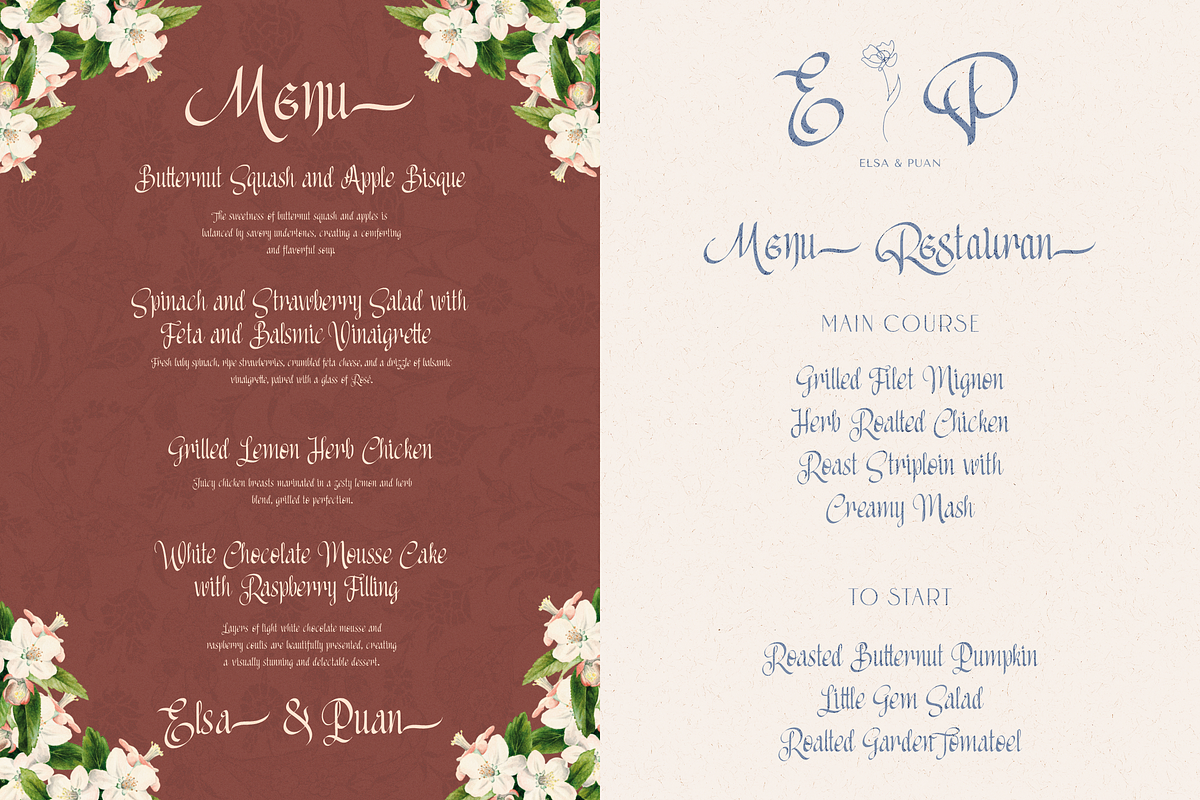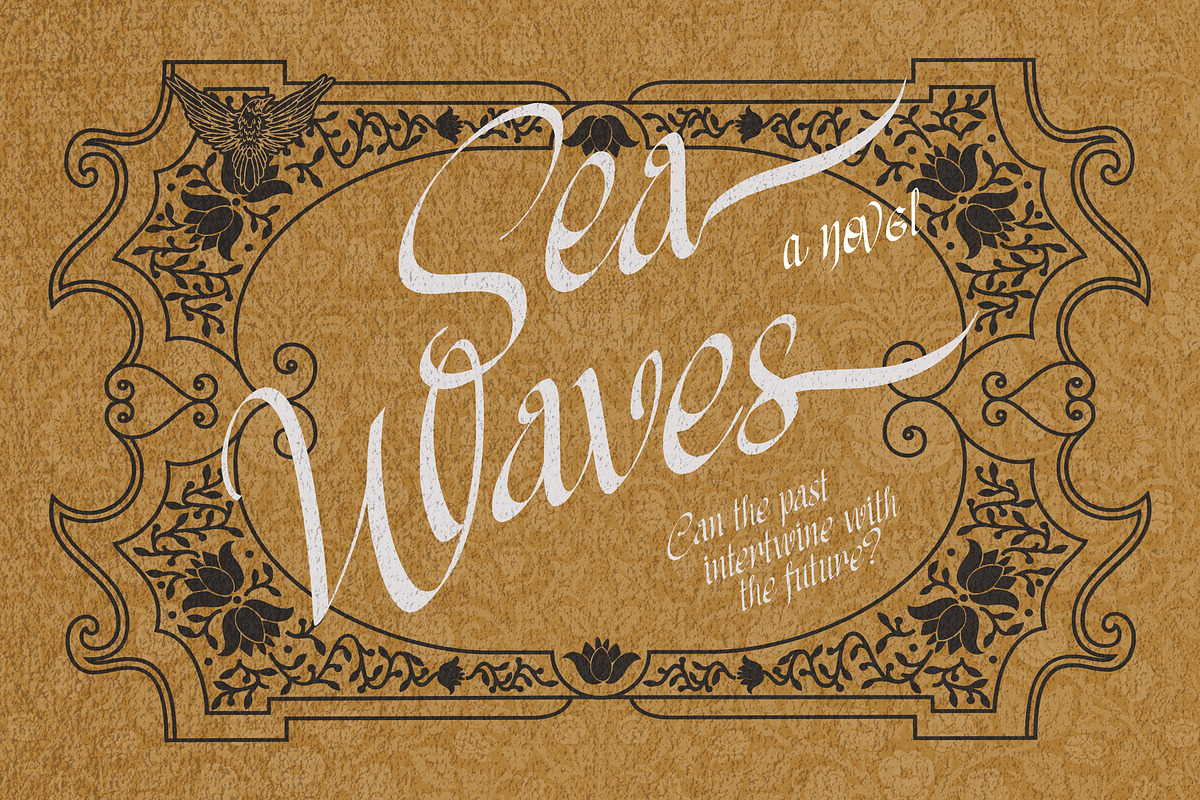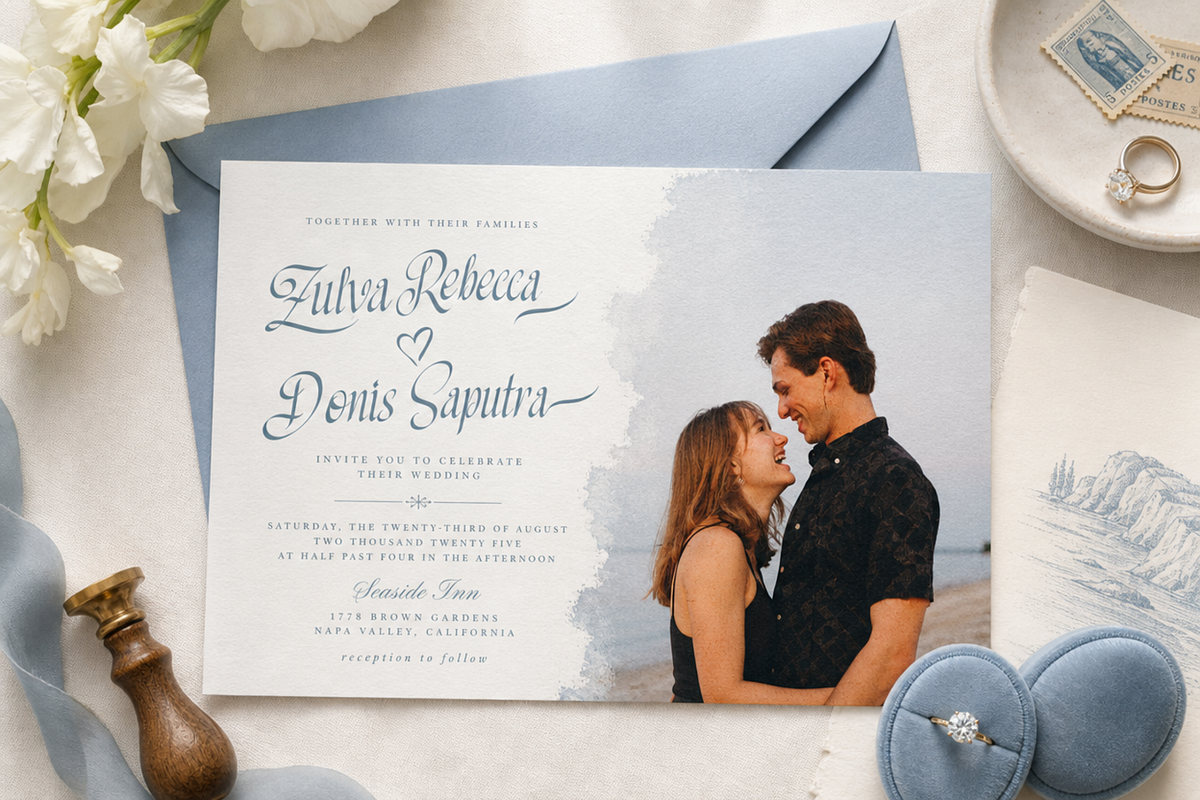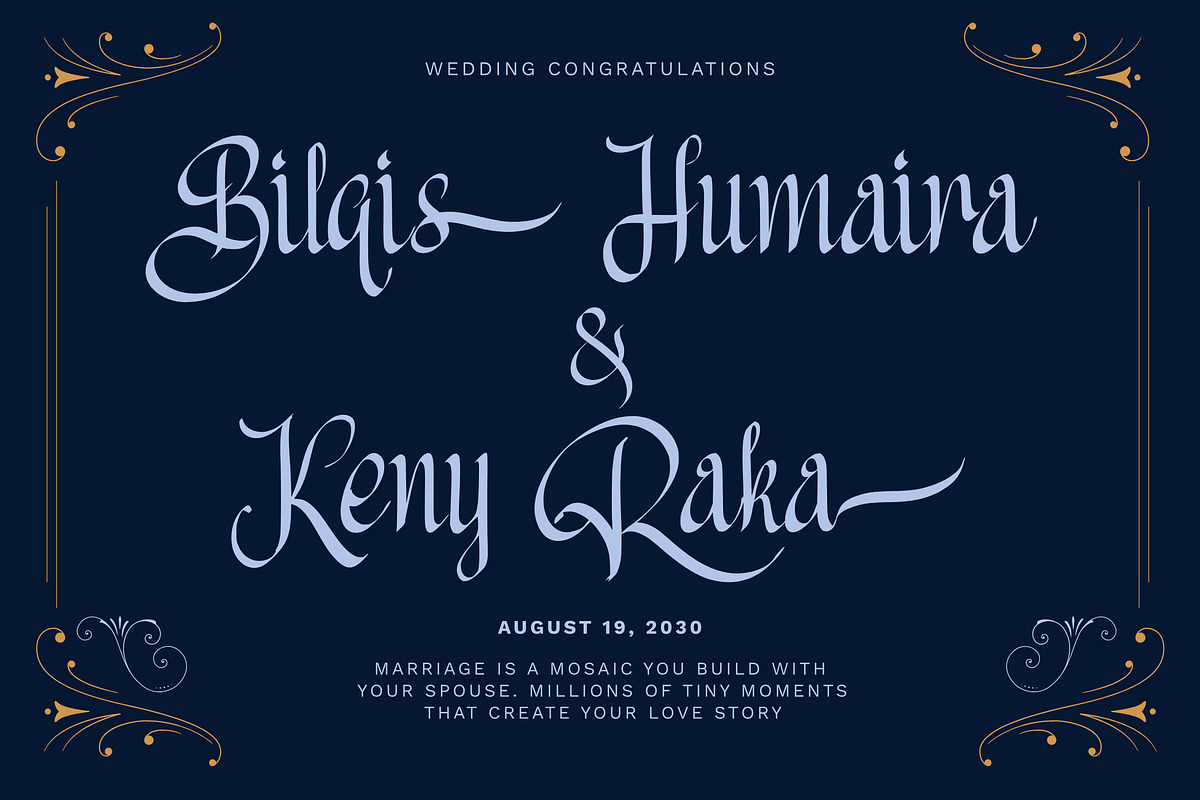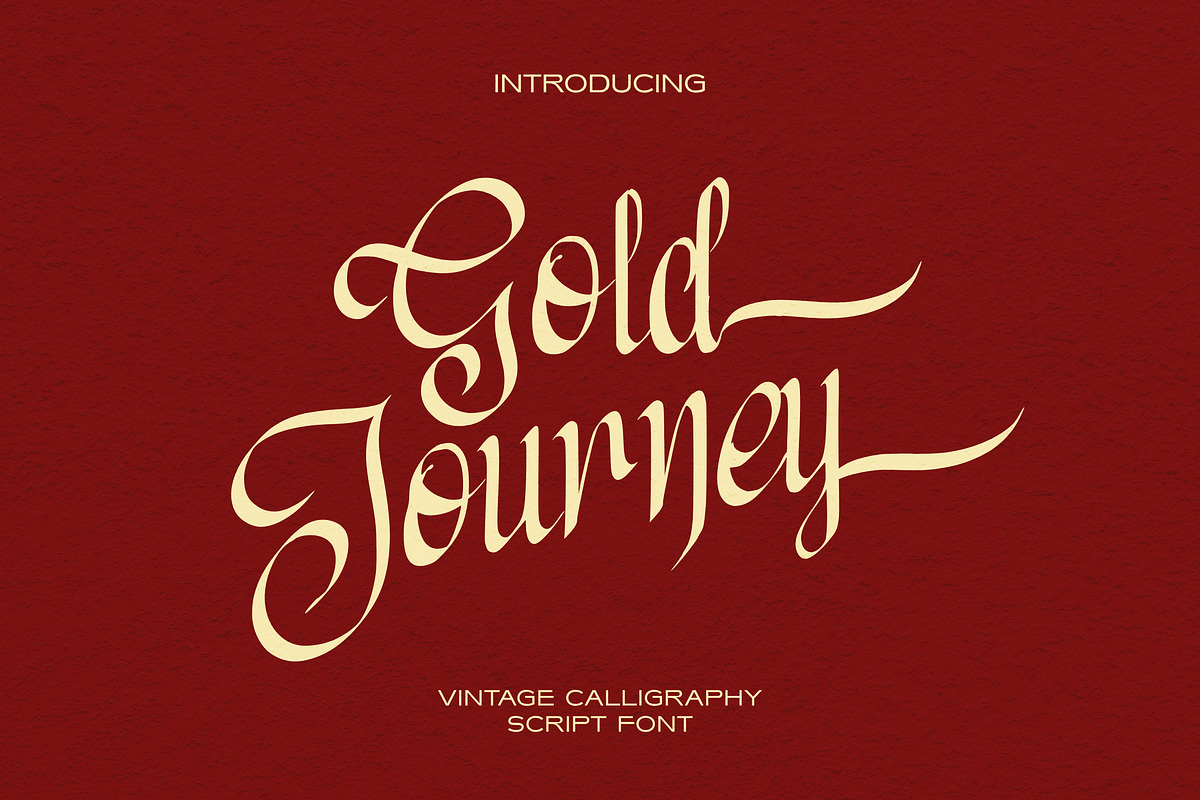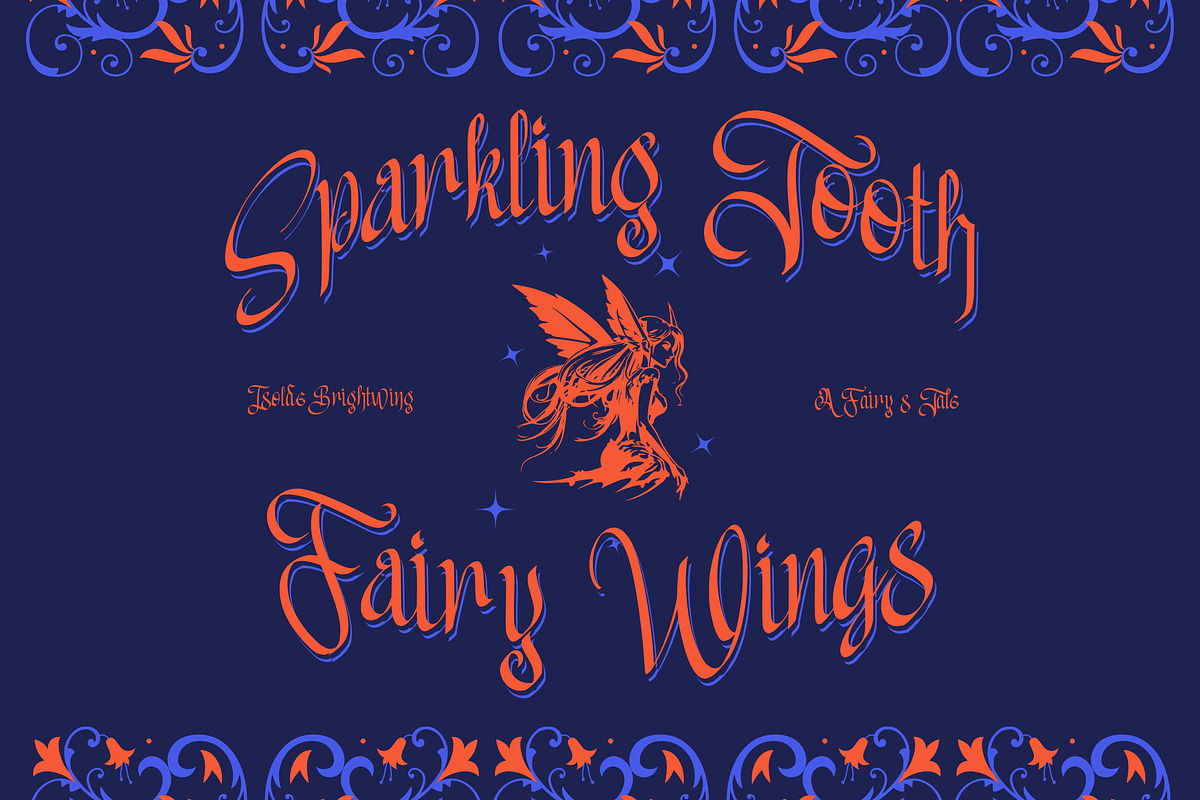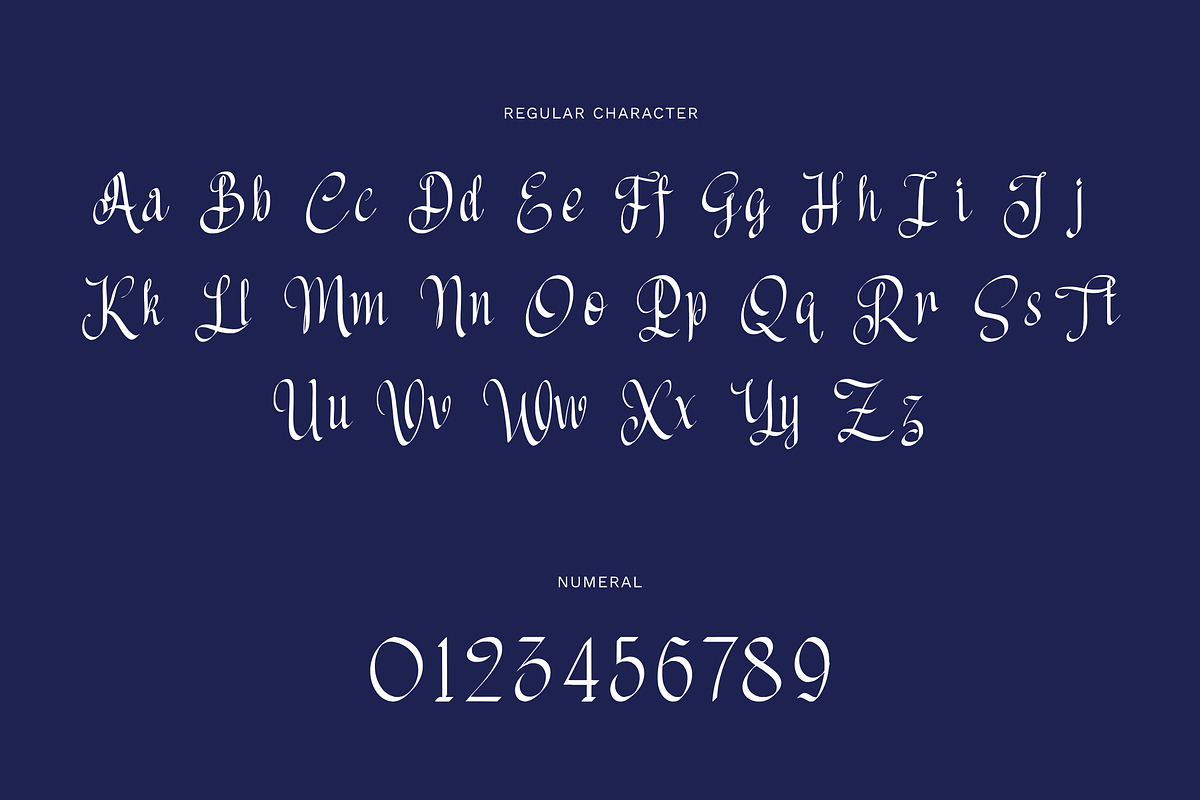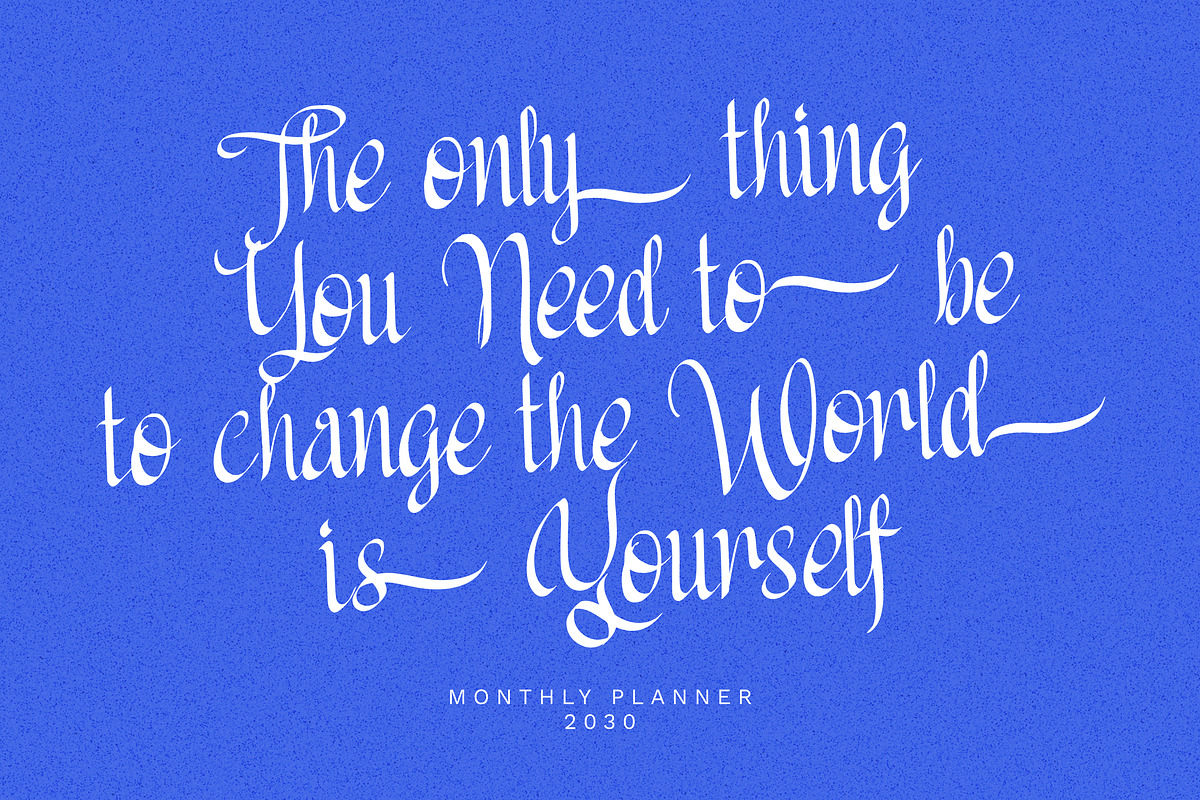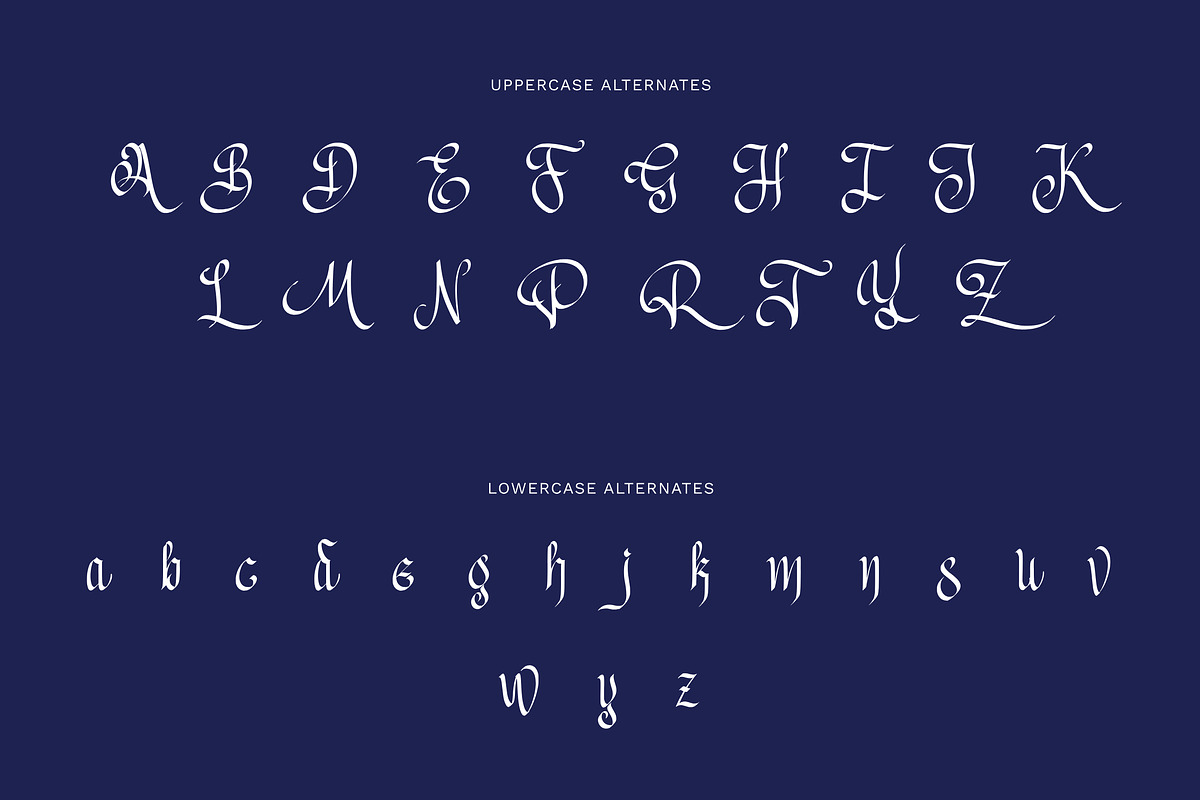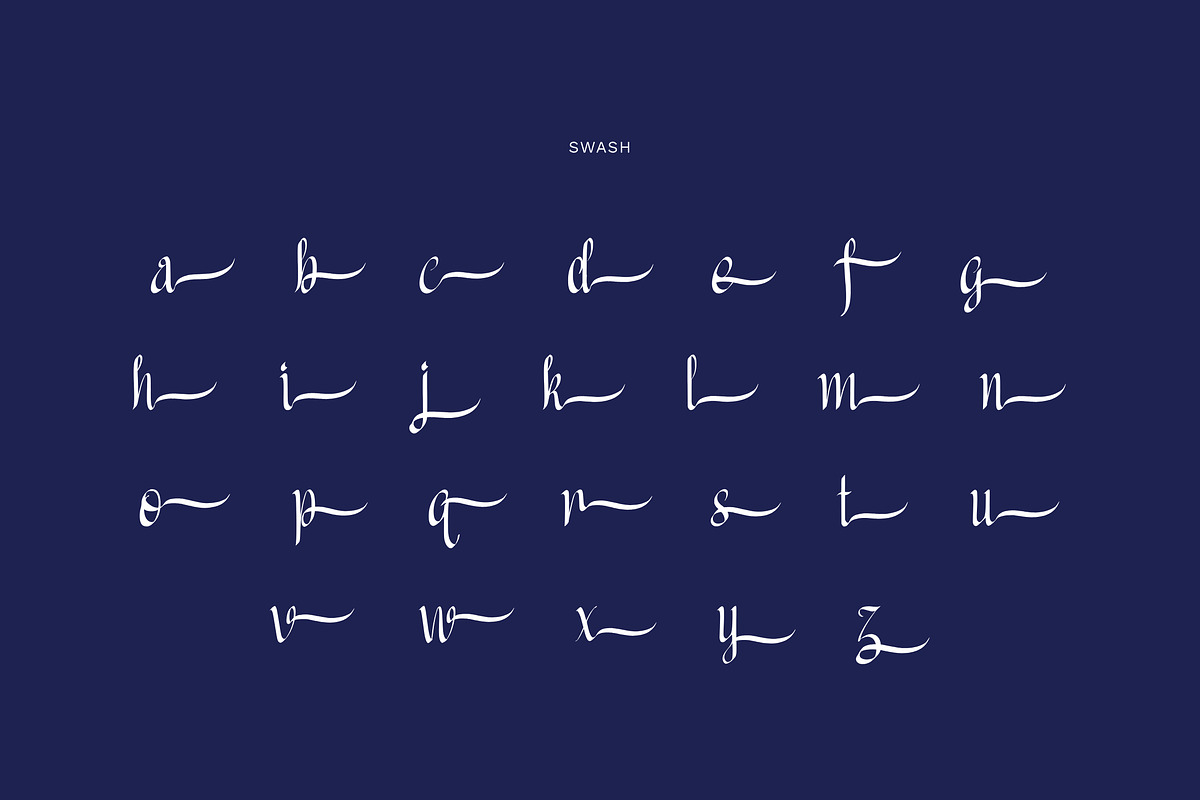
Gold Journey - Vintage Calligraphy
Gold Journey is an elegantly crafted vintage calligraphy script that seamlessly blends classical calligraphic flourishes with a subtle touch of Victorian and blackletter charm. Designed with fluid strokes, sophisticated contrast, and dramatic extended swashes, this typeface delivers a timeless, luxurious aesthetic to any design project.
Whether you are crafting romantic wedding invitations, quotes, vintage book covers, menu, luxury brand logos, or fairytale editorial design, Gold Journey offers extensive character alternates and swashes to bring your typography to life.
Uppercase and Lowecase Characters.
Numerals and Punctuations.
Alternates and Ligatures.
Multilingual Support.